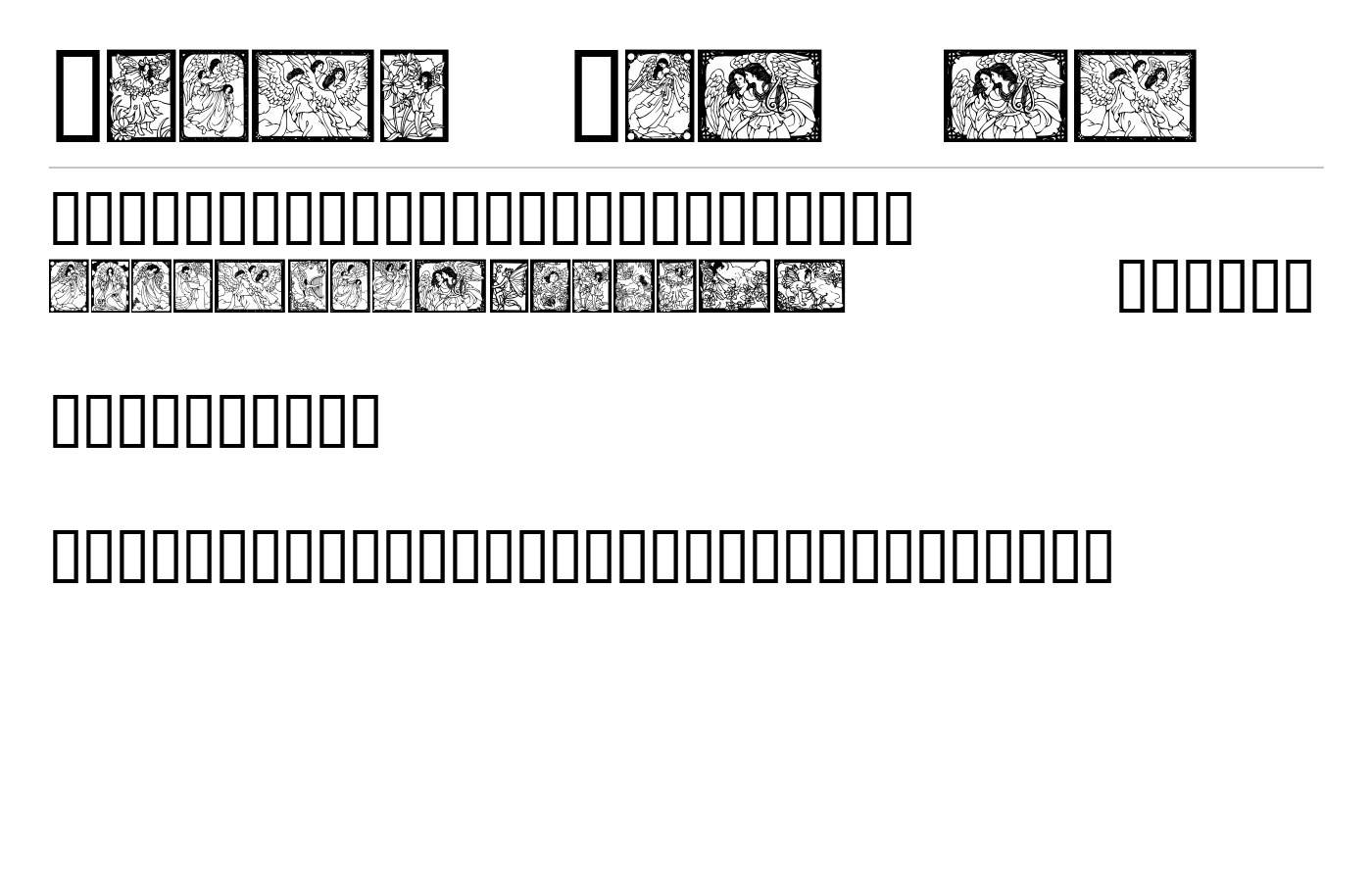
AngelsFairies is a decorative dingbat font featuring intricately detailed angel and fairy illustrations enclosed in square frames. This ornamental style is perfect for adding a whimsical, ethereal touch to creative projects like invitations, greeting cards, and fantasy-themed designs, providing a unique and artistic flair rather than conventional text usage. Its detailed imagery lends itself well to display purposes where a magical, storybook atmosphere is desired.
AngelsFairies Font
About AngelsFairies Font